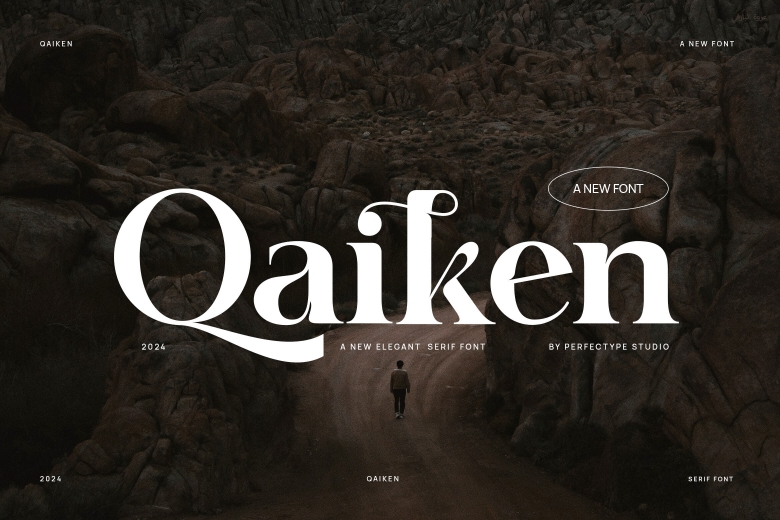
Qaiken Font
Qaiken is a new font type which is a serif font that also has a classy and a modern outlook. This type of font is very appropriate for your many uses like branding, logos, wedding, social media updates, ads, packaging, product, label, photo, watermark, invitation, stationery, and anything in highly readable.
Qaiken Serif Font